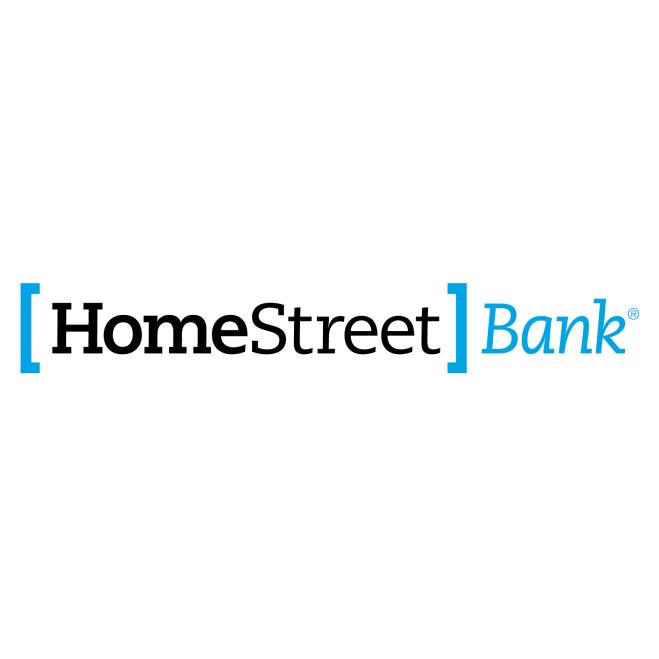
Homestreet Bank Font
The HomeStreet logo features the PMN Caecilia font, with "HomeStreet" set in Caecilia Bold and Roman and "Bank" in Caecilia Italic. The font was designed by Dutch type designer Peter Matthias Noordzij in 1990 for Linotype.